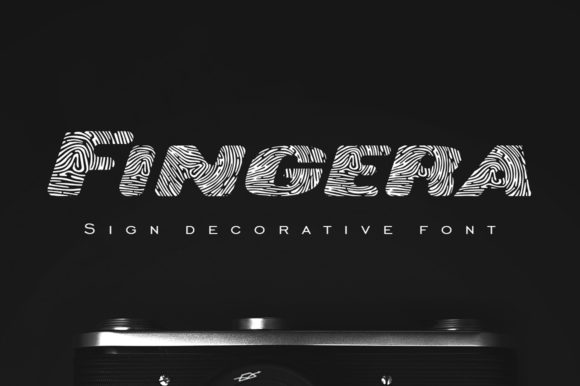
Unleash the artistry of your digital creations with Fingera Font, the epitome of decorative elegance. Inspired by the intricate patterns of a fingerprint, this font embodies the uniqueness and character of a human touch. Each glyph is a meticulously crafted masterpiece, exuding sophistication and grace that will elevate your designs to new heights.
With Fingera Font, you hold the key to unlocking a world of visual brilliance. Its meticulously designed curves and flourishes dance across the screen, captivating the eyes and igniting the imagination. Whether you're a seasoned designer or just starting your creative journey, Fingera Font is the perfect companion to bring your artistic vision to life.
Step into a realm of endless possibilities, where typography becomes an art form. From eye-catching logos and headers to stunning website designs and social media graphics, Fingera Font effortlessly transforms the ordinary into the extraordinary. Its versatility knows no bounds, adapting seamlessly to a myriad of projects and styles.
Experience the thrill of creating designs that resonate with your audience. Whether you're crafting UI/UX interfaces, branding materials, or captivating marketing campaigns, Fingera Font empowers you to communicate your message with unparalleled clarity and impact.
Don't settle for mediocrity; embrace the transformative power of Fingera Font. Let your creativity soar as you witness the magic unfold before your eyes. Your designs will radiate with a captivating allure that leaves a lasting impression on all who encounter them.